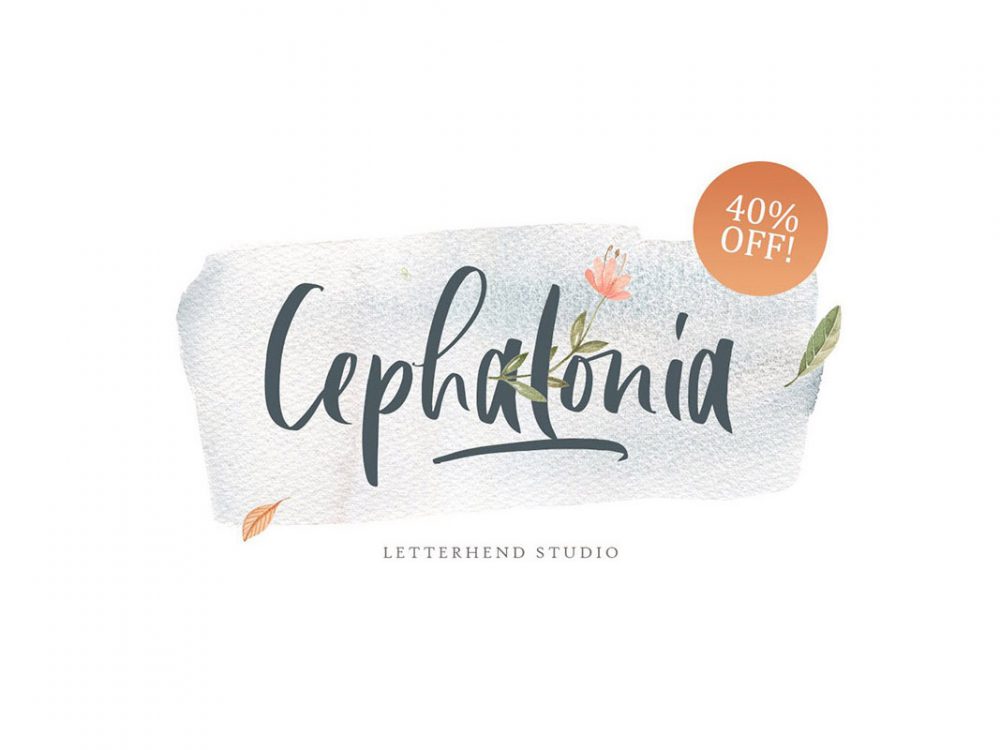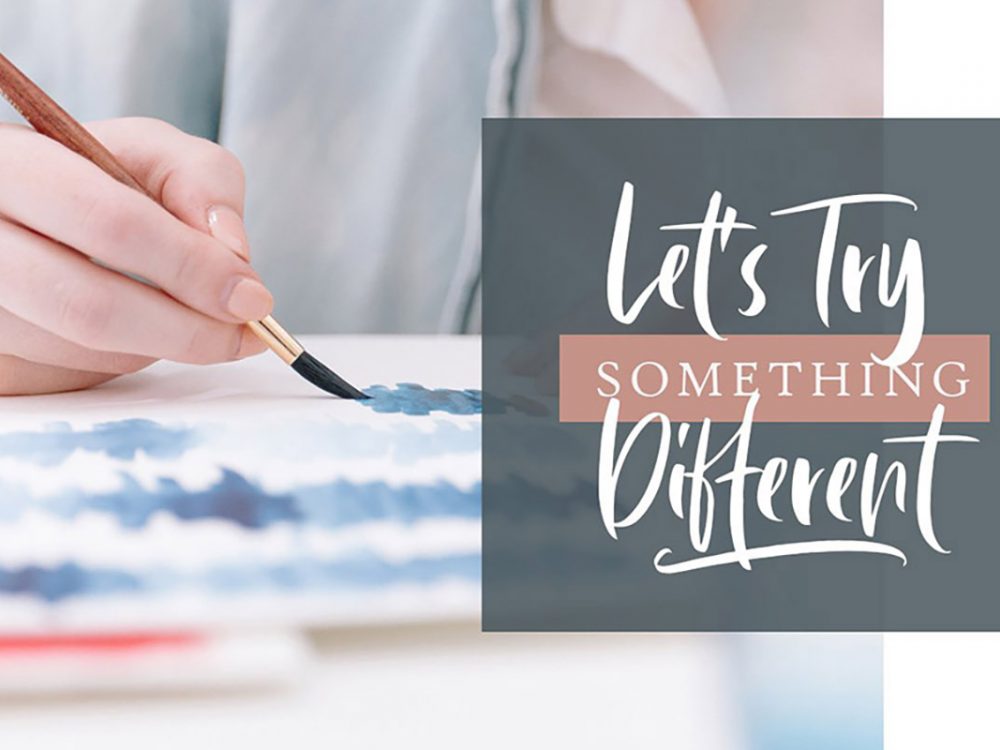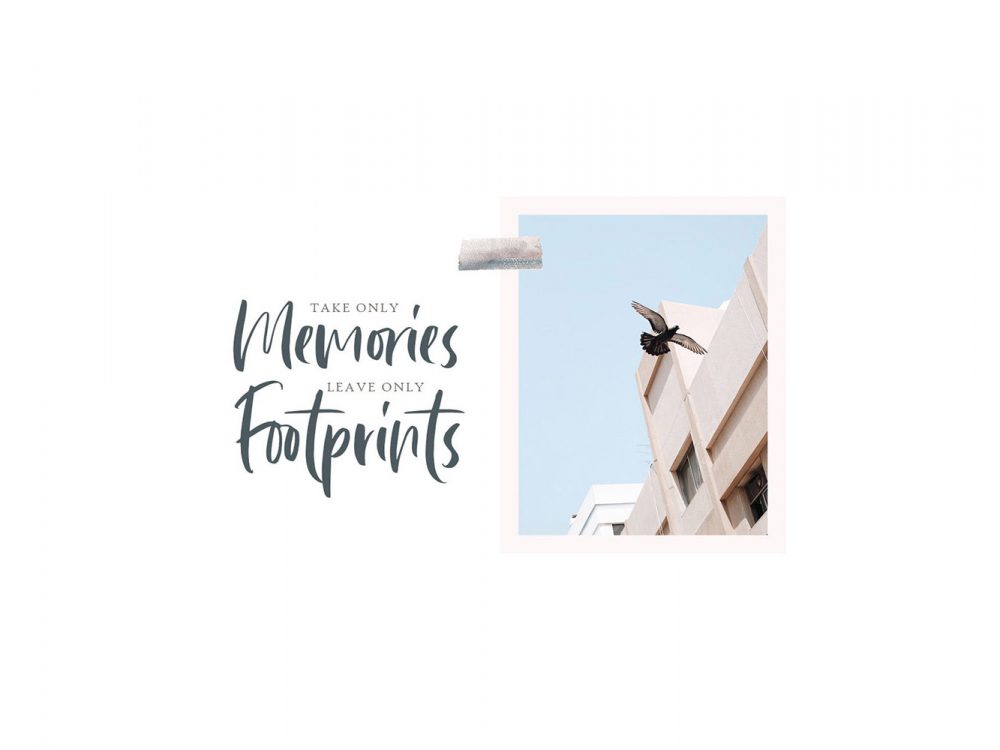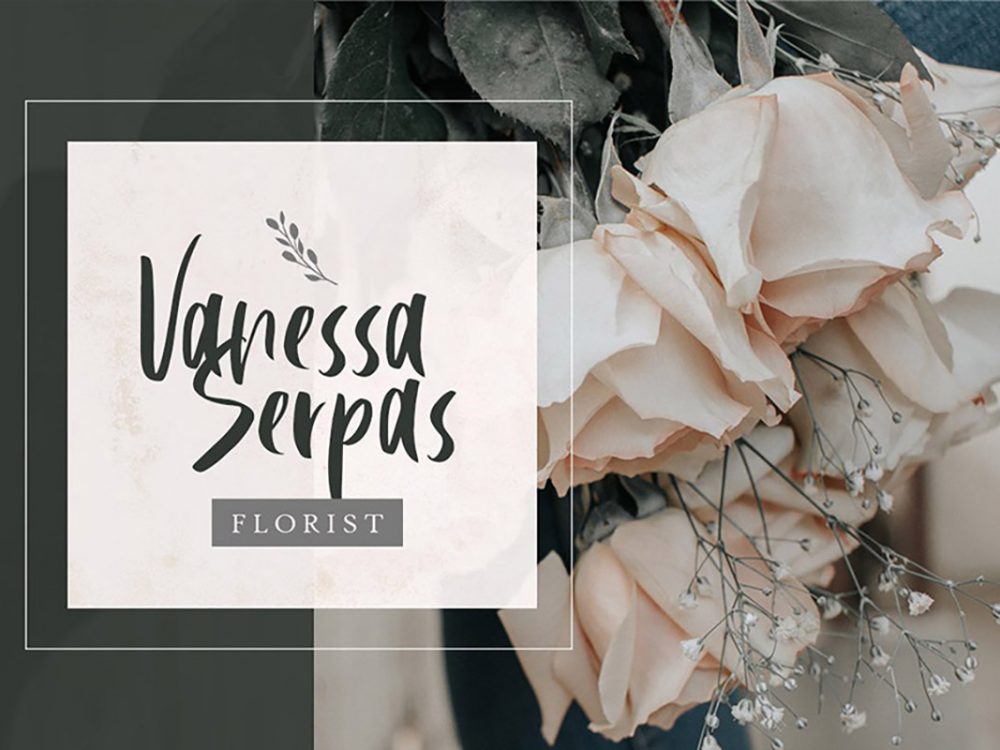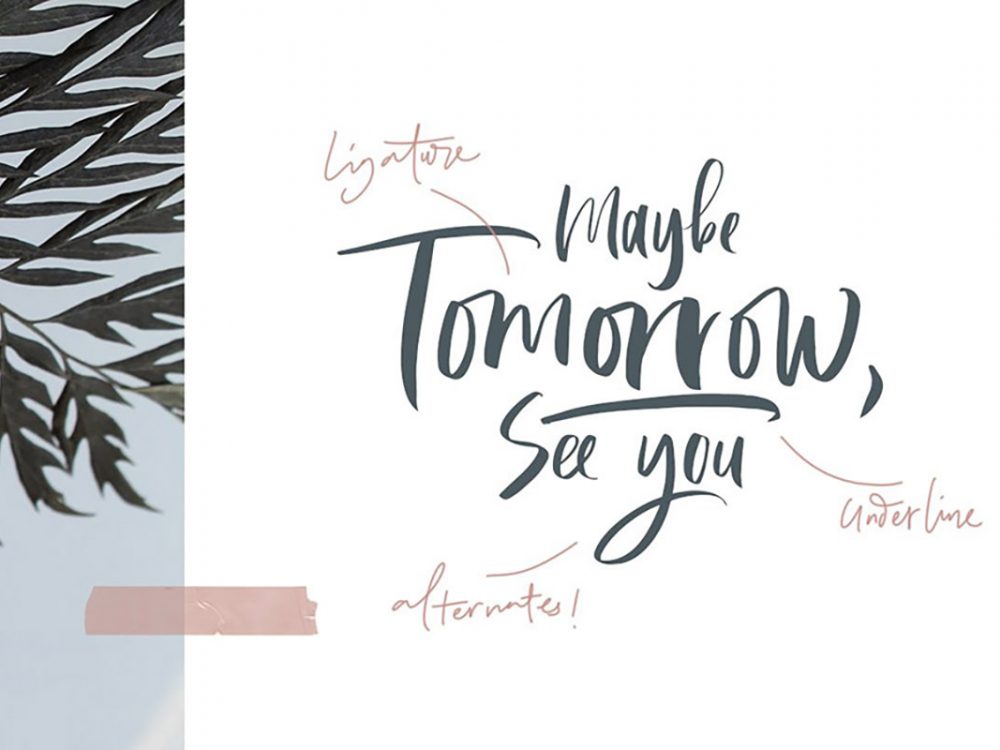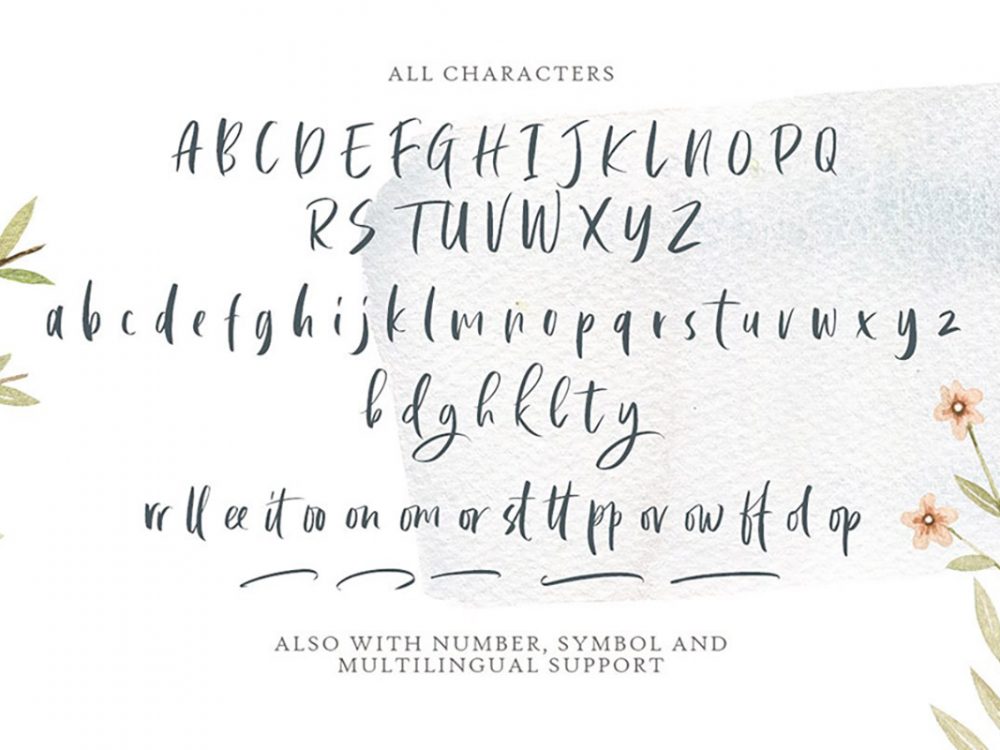
Cephalonia Handlettering Font
Cephalonia Handlettering Font is a beautiful and interesting handwritten font that mimics brush writing and has an elegant style. This font is very well suited for various design projects that require a scripted font. These can be posters, cards, wedding invitations, branding, flyers, prints, and more. Add uniqueness to your projects using this catchy font. If you wish to access more features and use them for commercial work please buy the full version.